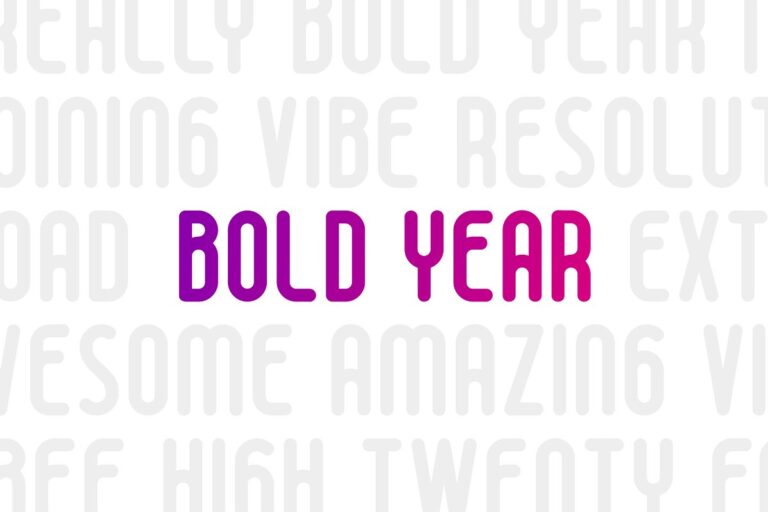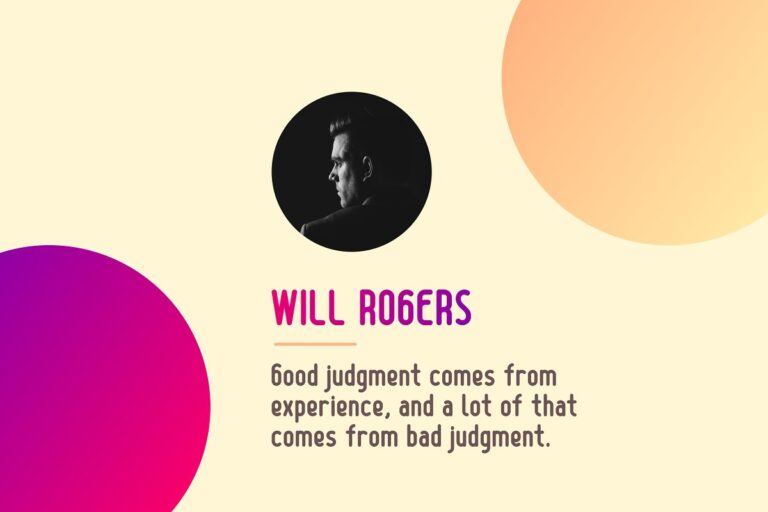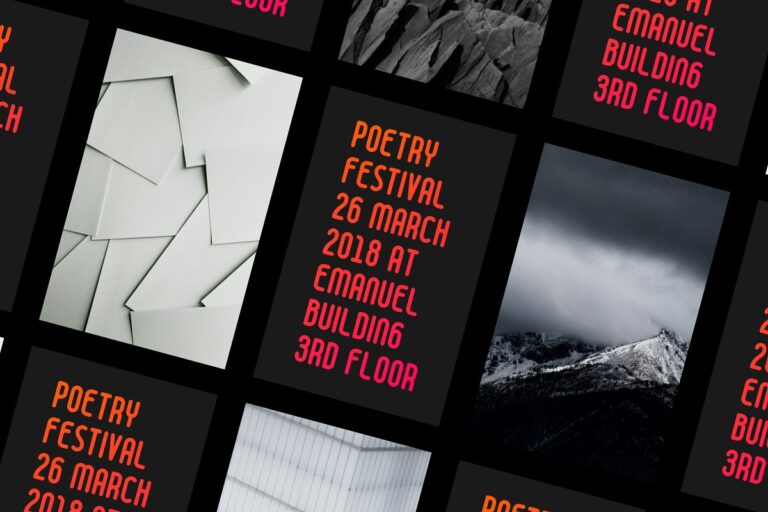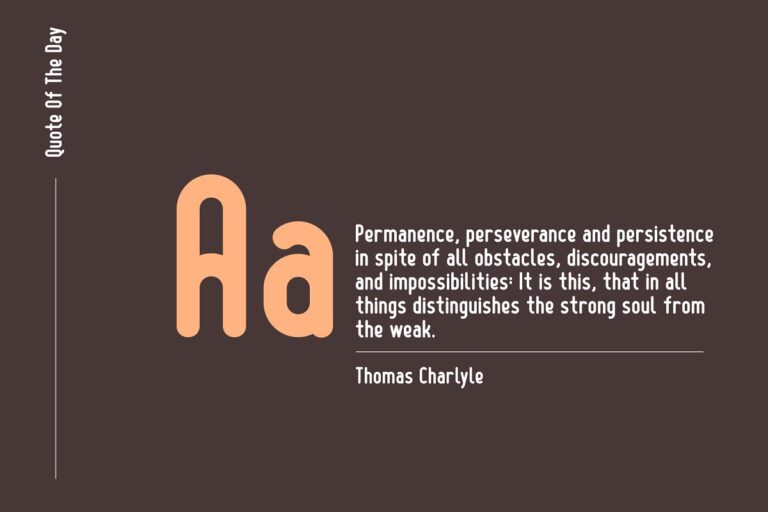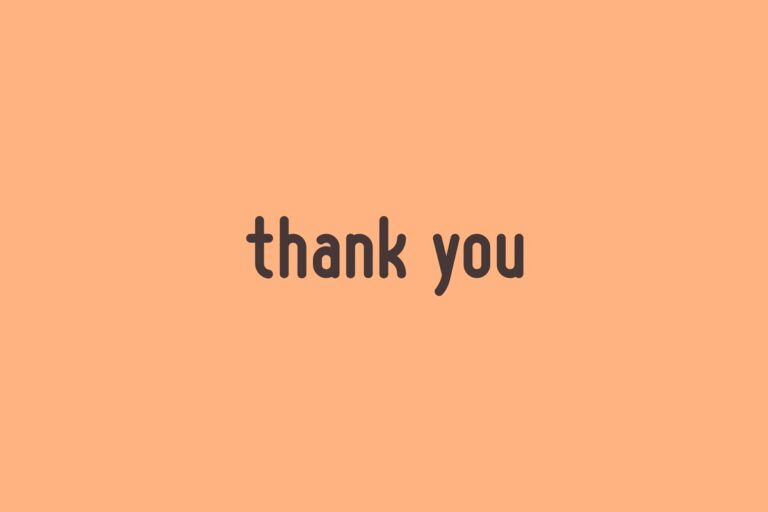
BOLD YEAR
BOLD YEAR a Bold condensed sans serif font that suits for any creative projects like magazine, web design, logotype, branding, label, campaign and many more.
Feature:
- uppercase
- lowercase
- punctuation
- number
- multilingual